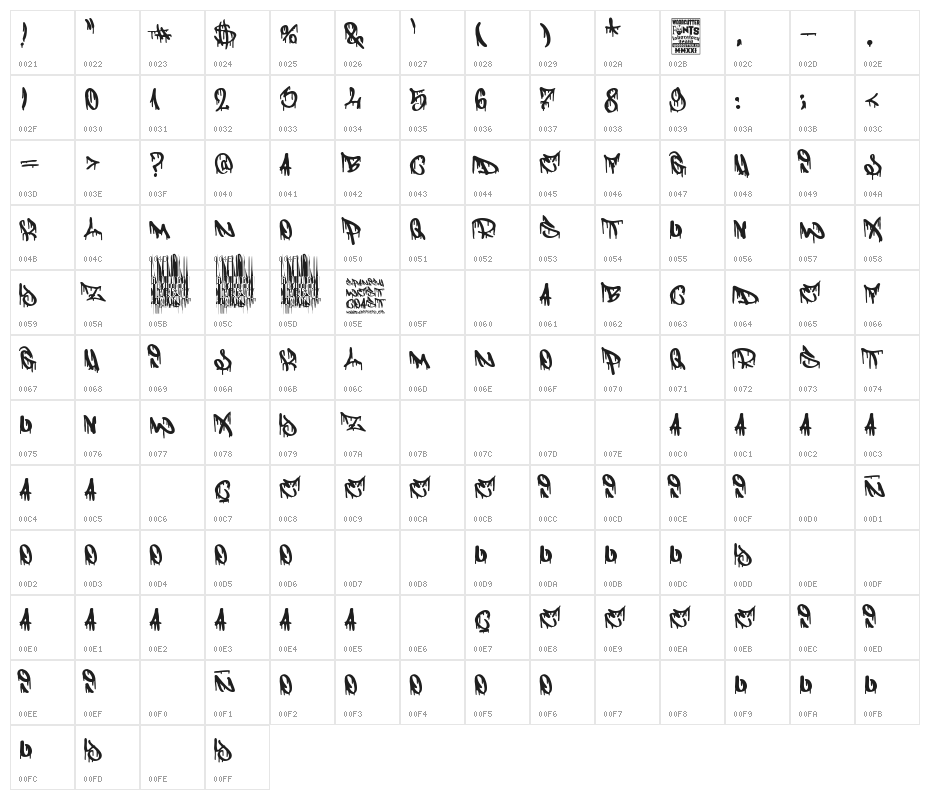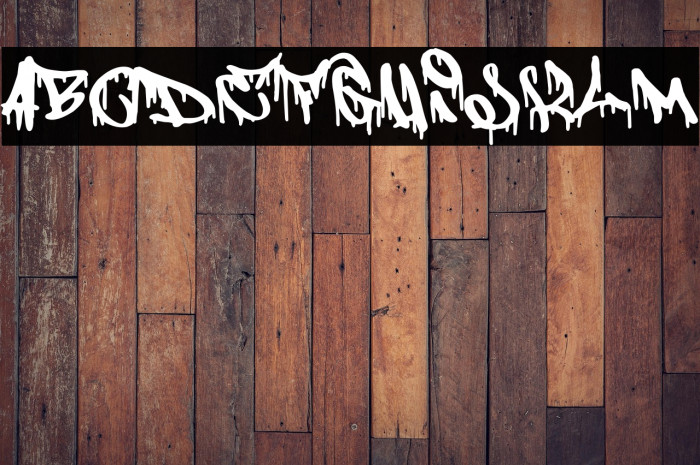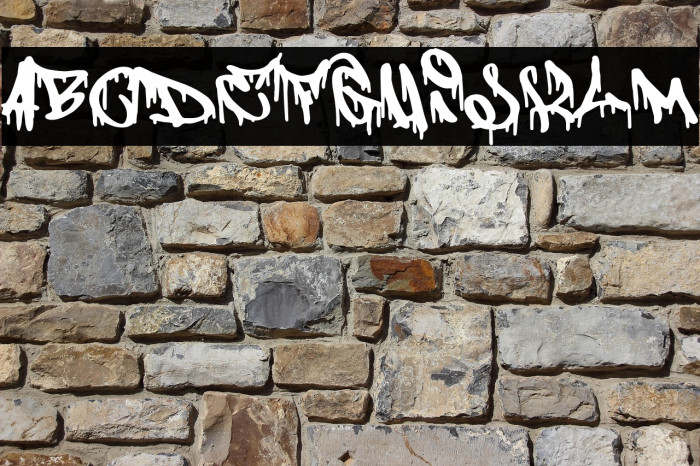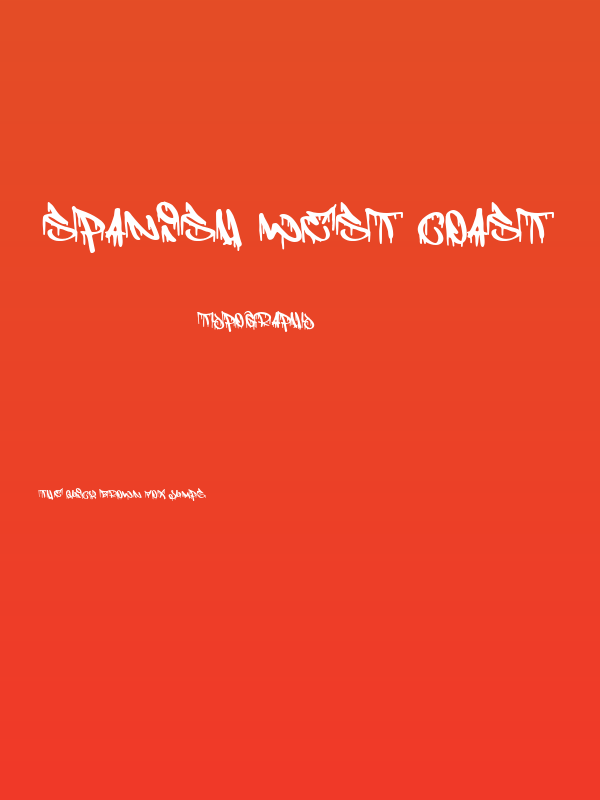
Spanish West Coast Font
Spanish West Coast Description
This font features a bold, graffiti-inspired style with a dripping paint effect, reminiscent of street art. The characters are highly stylized, with exaggerated curves and angles that give them a dynamic and edgy appearance. The uppercase and lowercase letters maintain a consistent theme, while the numbers and special characters are equally expressive, adding to the overall rebellious and urban vibe. The font's unique design makes it stand out, capturing attention with its artistic flair.
| Overall Style | Modern, Urban |
| Proposed Projects | Ideal for urban-themed designs, streetwear branding, music album covers, and event posters. |